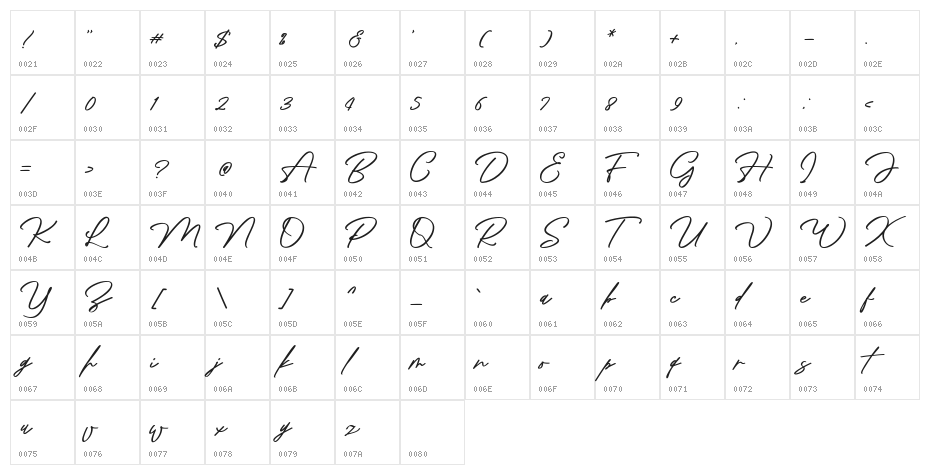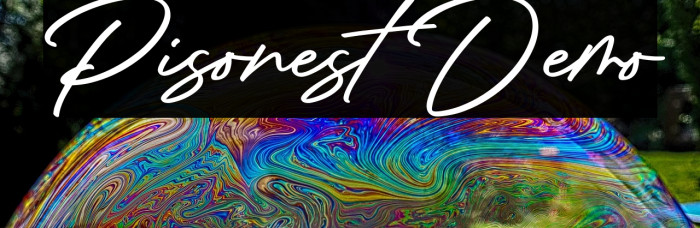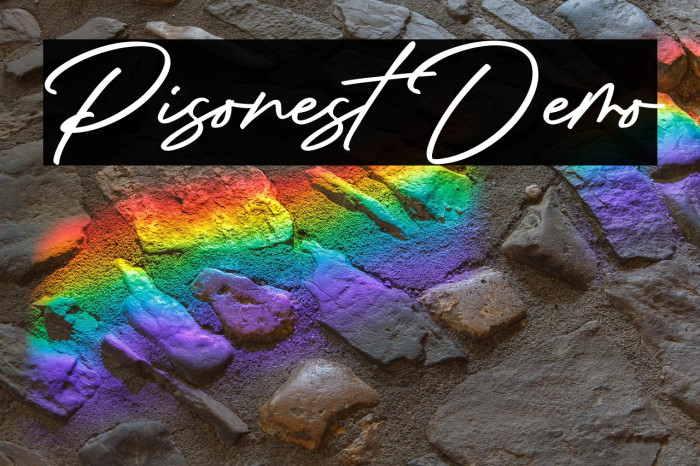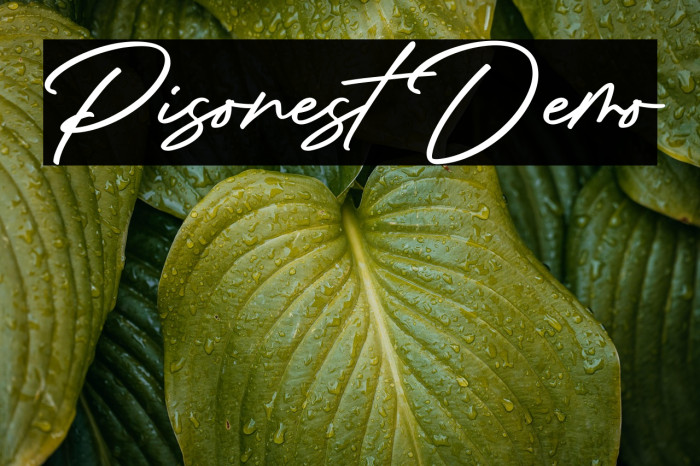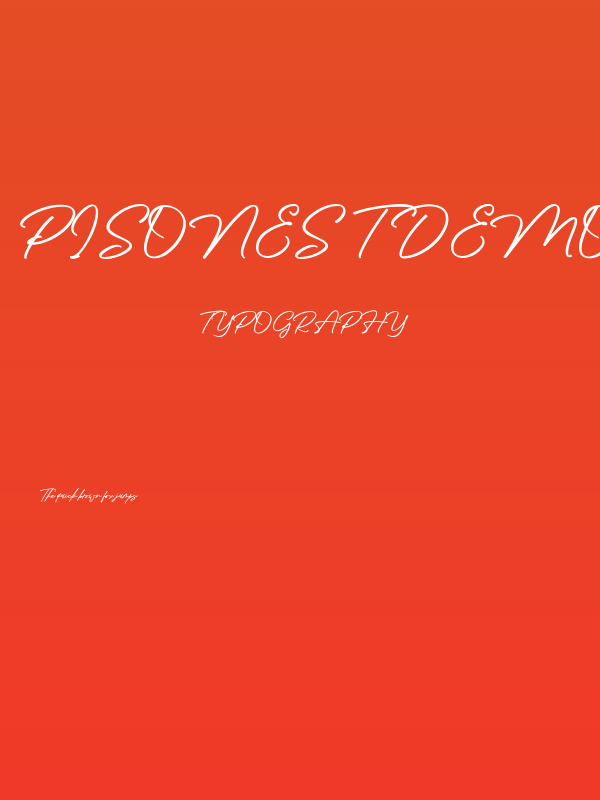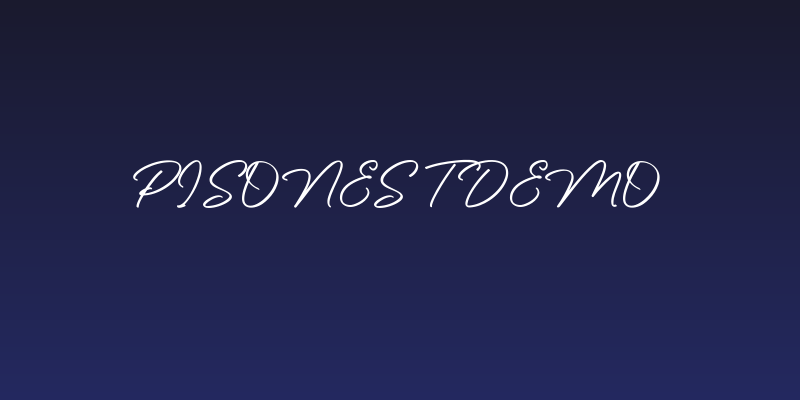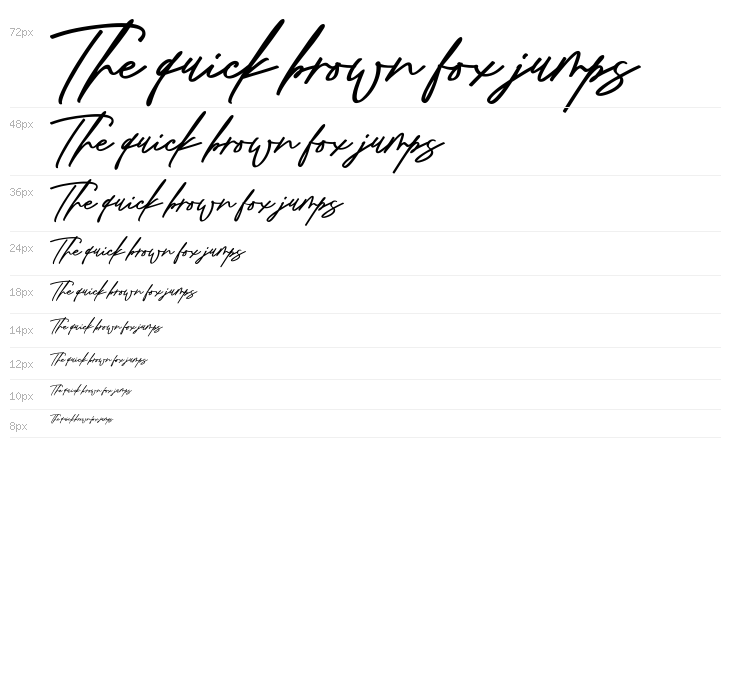
Pisonest Demo Font
Pisonest Demo Description
This font exhibits a flowing, cursive style that mimics elegant handwriting. The uppercase letters are gracefully connected, with a slight slant that adds a dynamic feel. The lowercase letters maintain a consistent flow, enhancing readability while preserving the handwritten aesthetic. Numerals are clear and distinct, complementing the overall script style. Special characters are seamlessly integrated, maintaining the fluidity of the design. This font is ideal for projects that require a personal touch, such as invitations, greeting cards, or branding materials that aim to convey sophistication and warmth.
| Overall Style | Elegant, Handwritten |
| Use Case | Invitations, Branding, Greeting Cards |
| Proposed Projects | Ideal for wedding invitations, personal branding, greeting cards, and elegant packaging. |